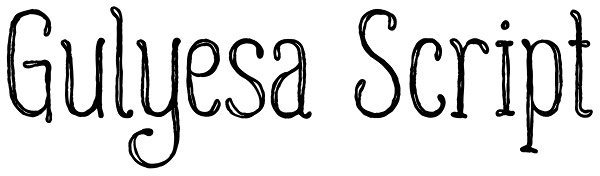
Gulyesa Script
Gulyesa script font is a handwriting typeface. It offers stylish alternatives at the first and last letters of the words. In addition to that the font contains a great number of alternates as stylistic, titling, contextual alternates... Also it...